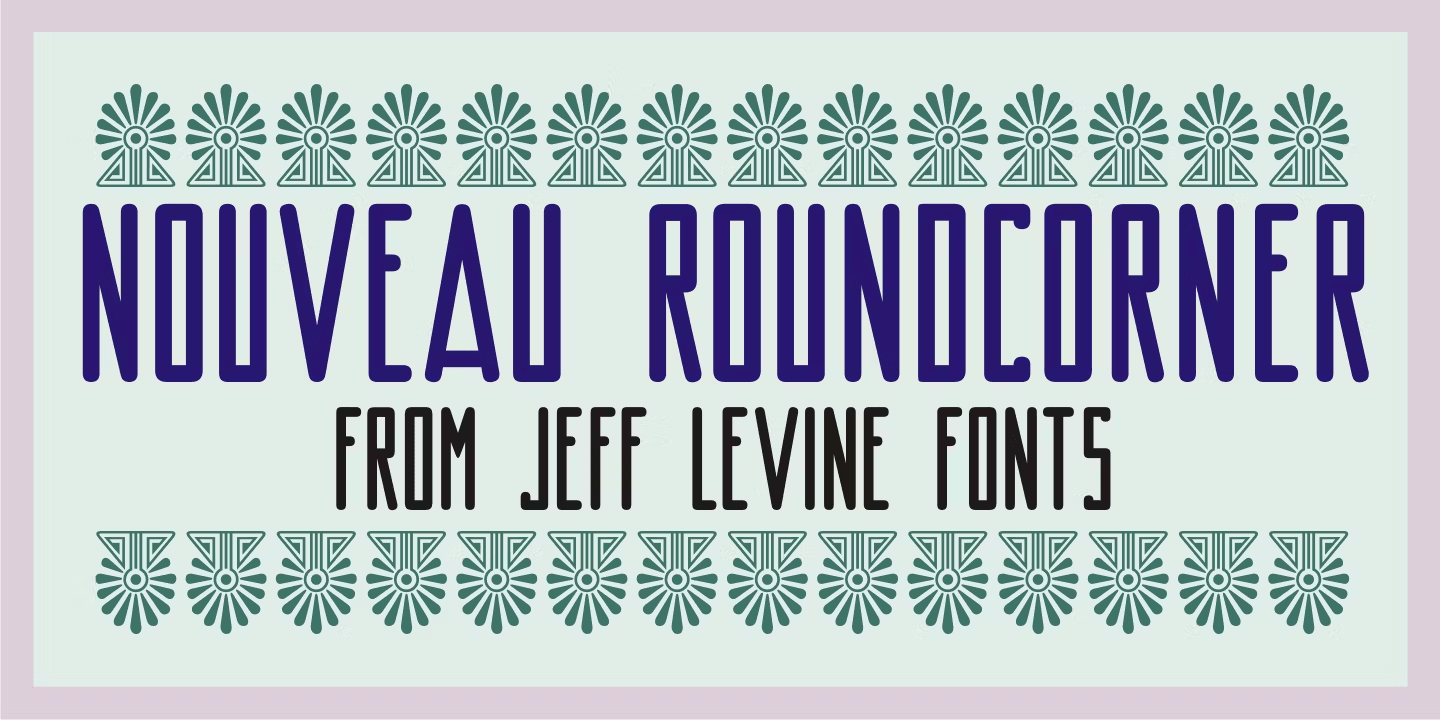
Nouveau Roundcorner
1920s sheet music for the song 'You Can't Get Away From It” provided the hand lettered title which acted as the basis for Nouveau Roundcorner JNL.
A square letter form with rounded terminals, this condensed face is perfect for titling, yet has a bit of an informal, casual charm to it.
Nouveau Roundcorner JNL Regular by Jeff Levine Fonts